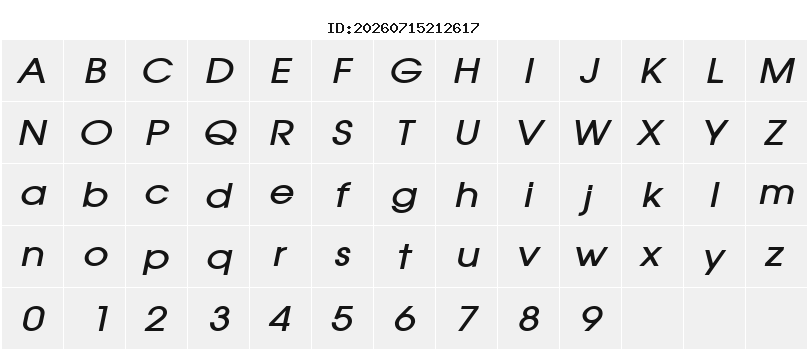
Atilla Wide Preview
• Font Name: Atilla Wide
• Font Style: BoldItalic
• Font ID: Altsys Fontographer 4.1 Atilla Wide BoldItalic
• Full Font Name: Atilla Wide BoldItalic
• Version: Altsys Fontographer 4.1 1/27/95
• PostScript Name: AtillaWideBoldItalic
About Atilla Wide.ttf
Atilla Wide.ttf is a modern, elegant sans-serif font designed for ultimate readability and visual harmony. Perfect for branding, headlines, web design, and print materials.